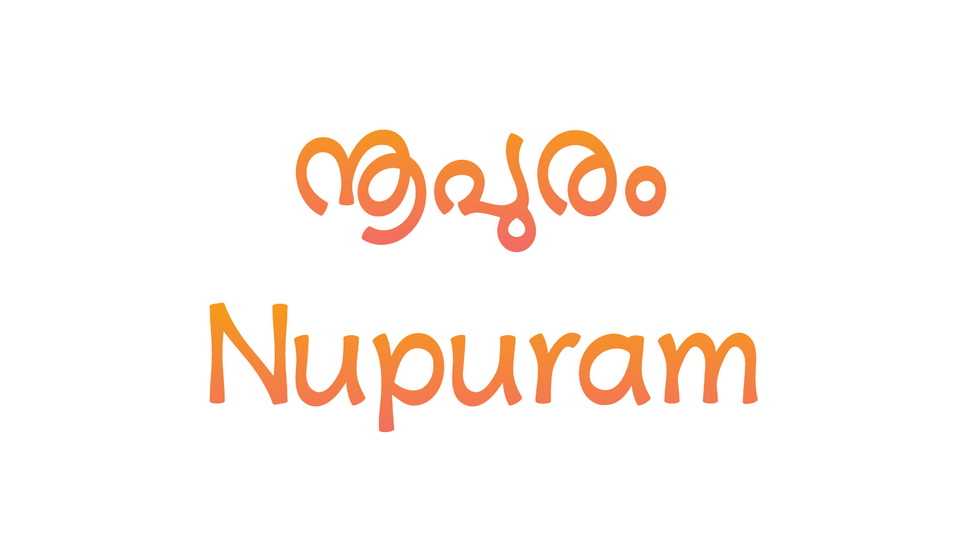
Download Nupuram font, a Malayalam typeface, inspired from the early Malayalam movie titles designs. Taking full advantage of variable font technology, Nupuram offers an unprecedented level of flexibility, all from a single font file.
Designer: Santhosh Thottingal